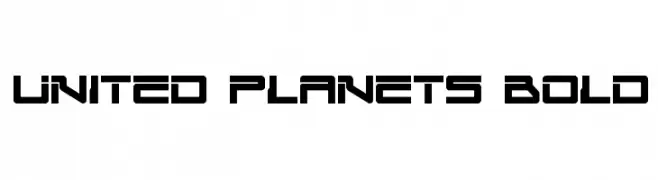
A bold, futuristic font with geometric and angular design.
A bold, italicized font with a futuristic and angular design.
A futuristic, geometric font with bold, angular letterforms and a condensed width.
A futuristic, angular, and italicized font with a condensed style.
A bold, futuristic font with geometric and angular letterforms.
A futuristic, expanded italic font with angular and geometric design.
A futuristic font with a gradient line pattern, perfect for tech and digital designs.
A futuristic, italic font with a gradient line effect, perfect for tech and sci-fi themes.
A futuristic font with a halftone pattern and geometric design.
A futuristic, italicized font with a halftone effect, ideal for modern and tech-themed projects.